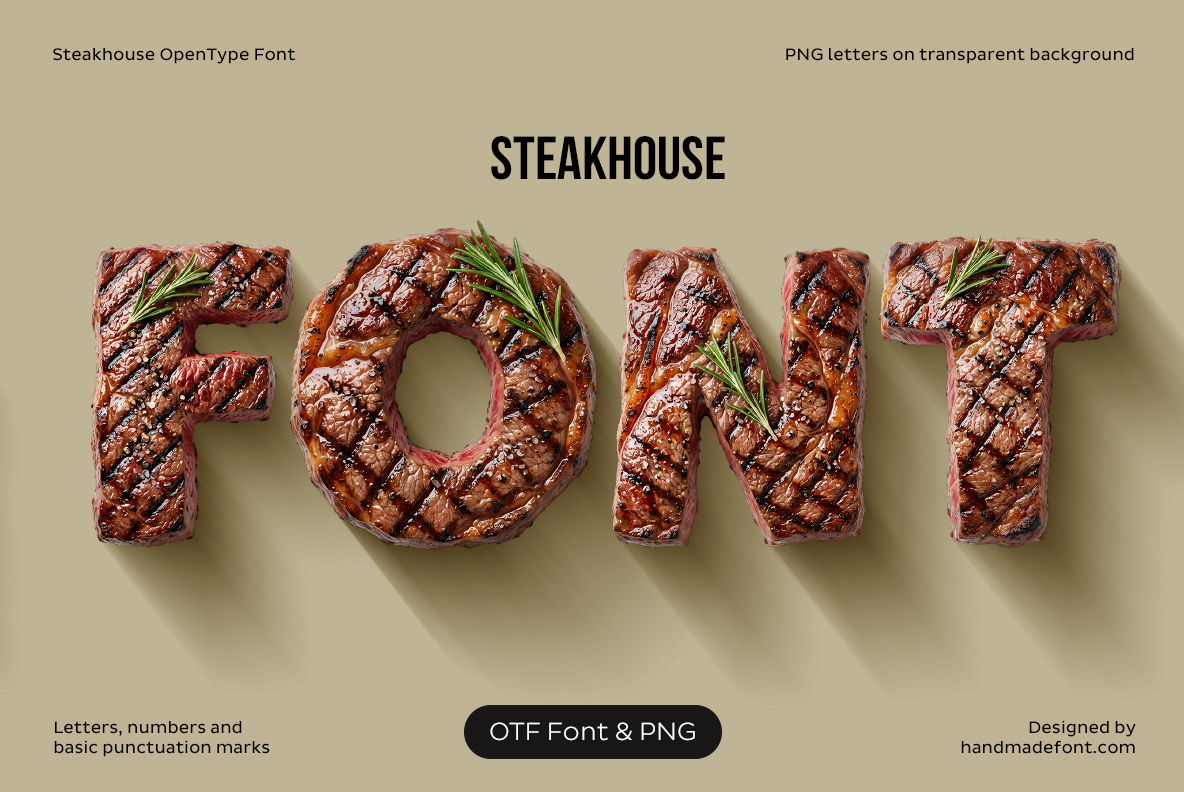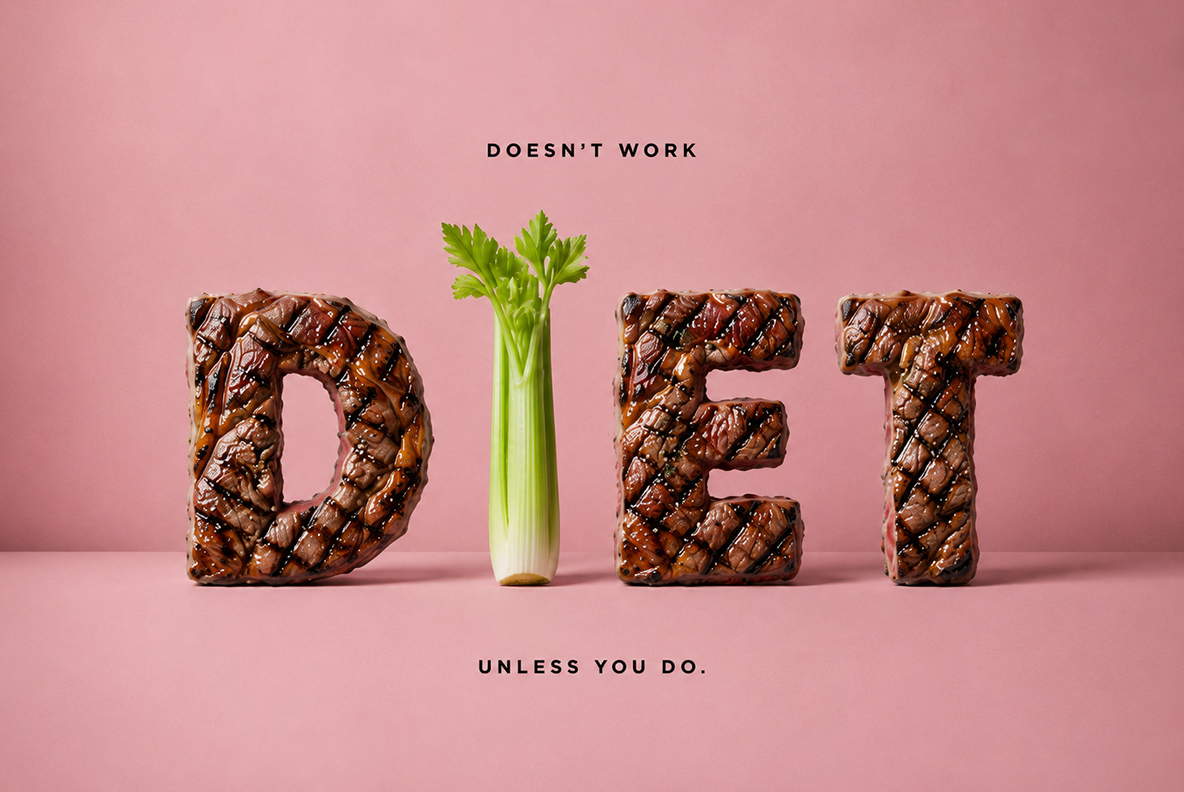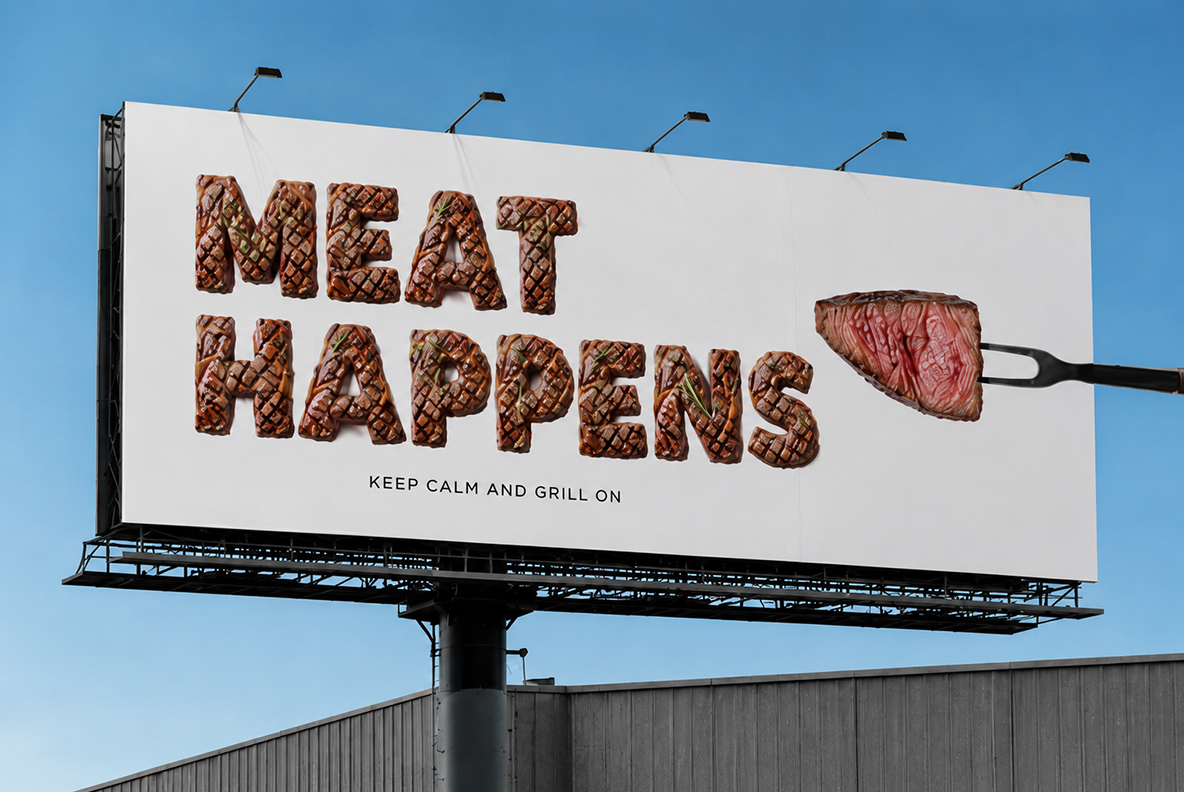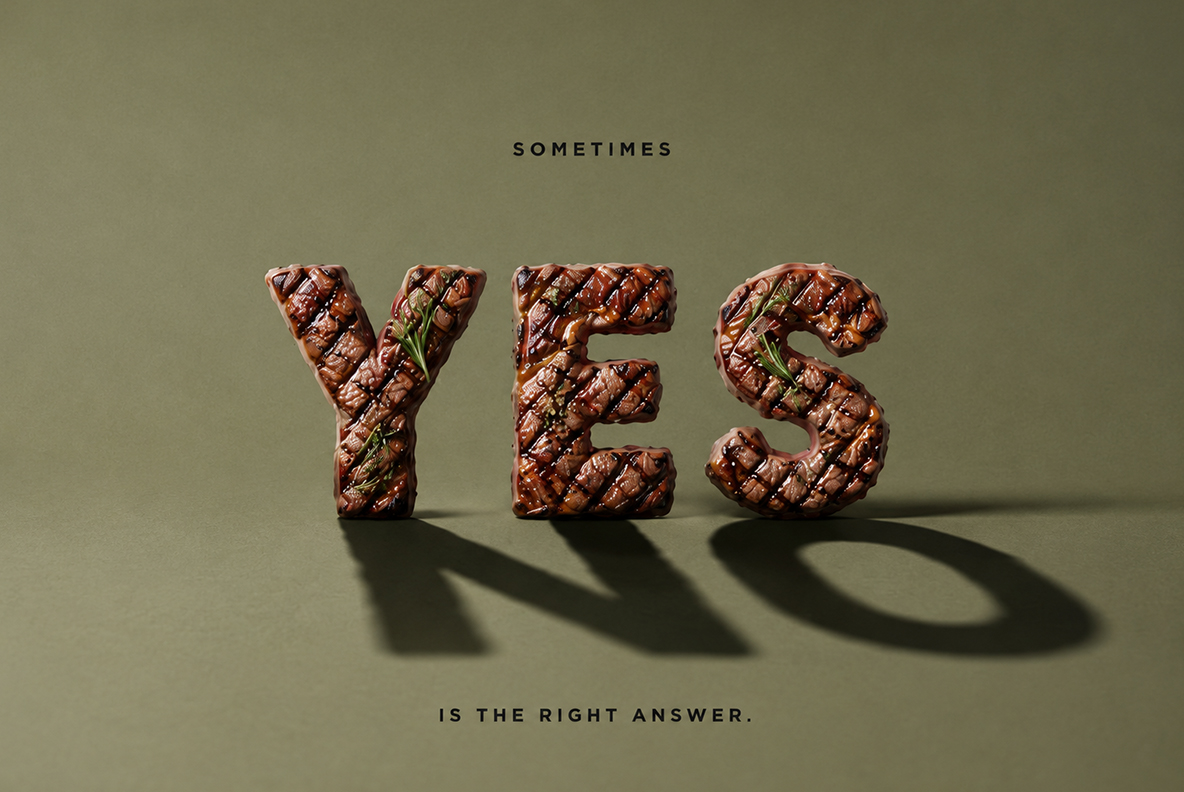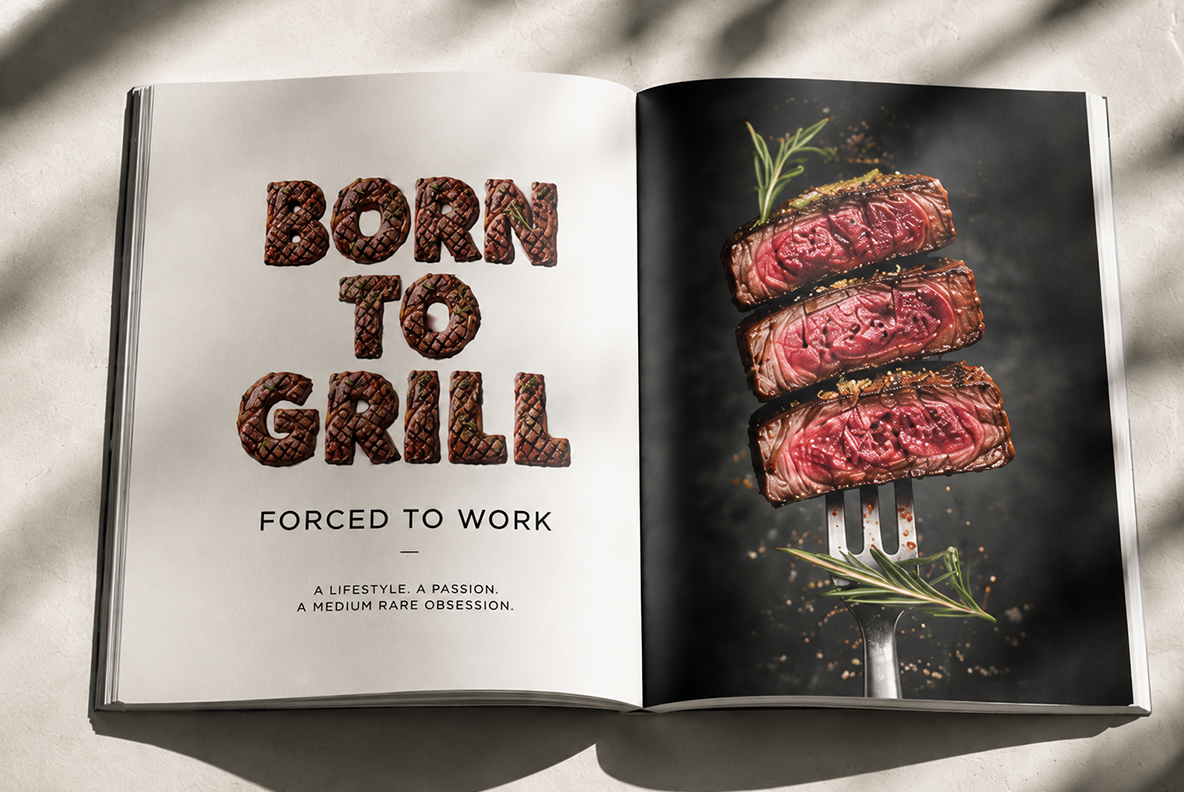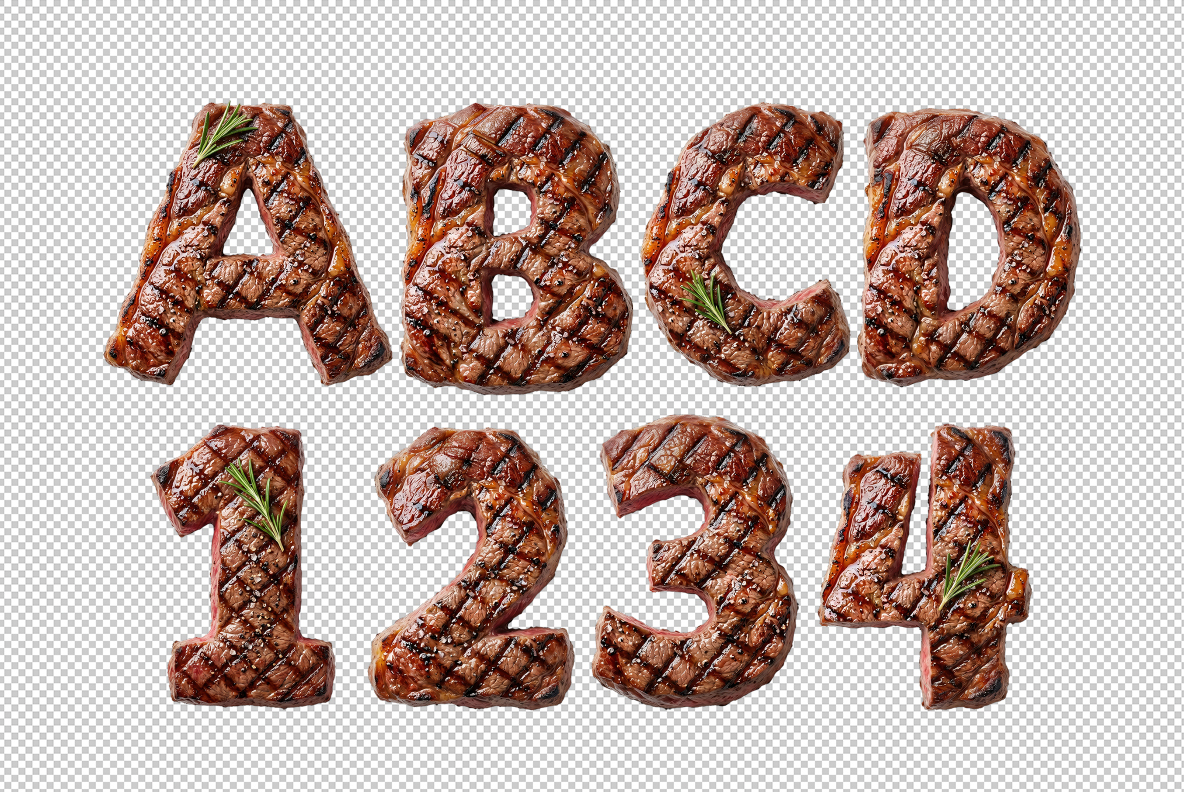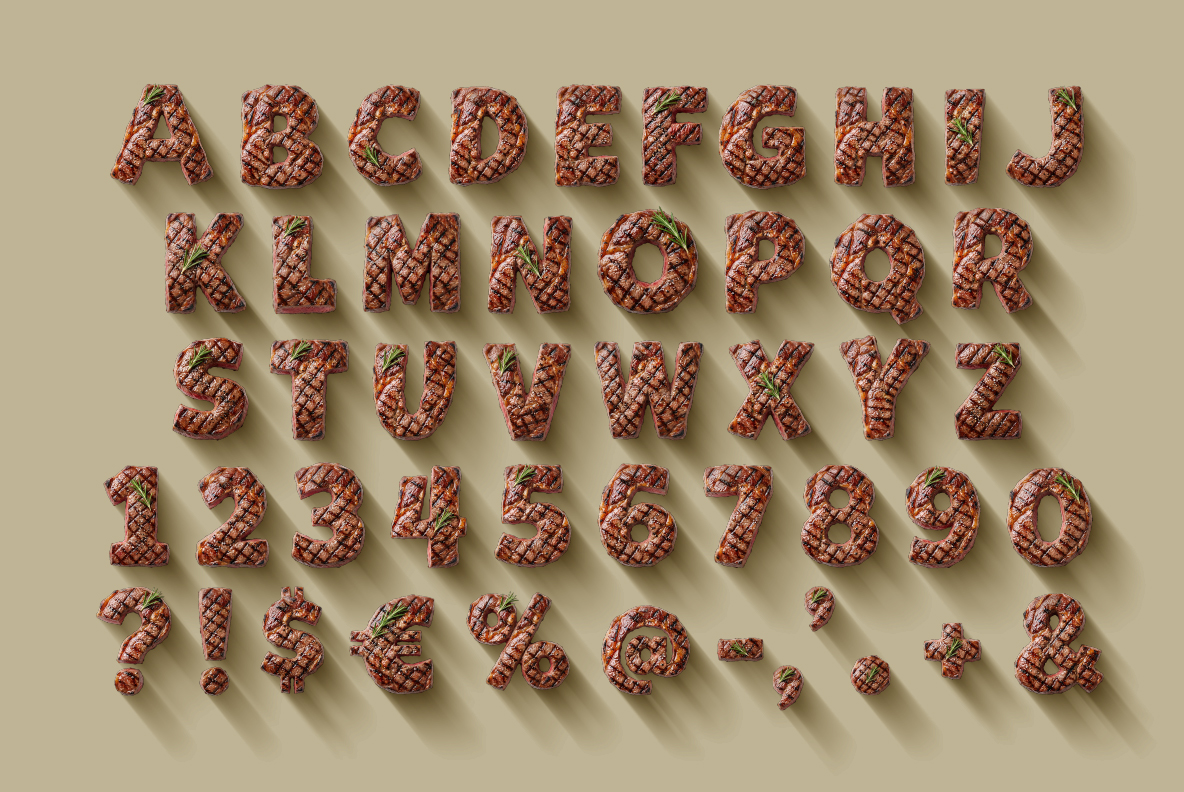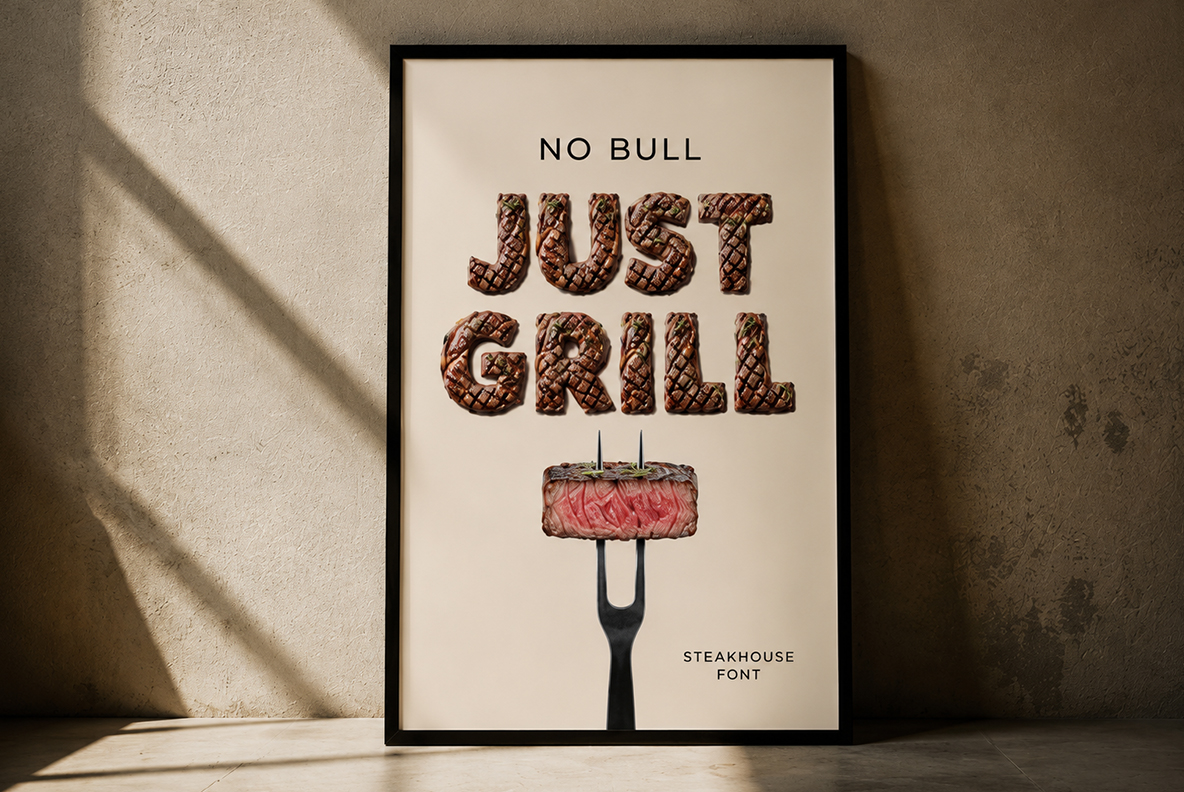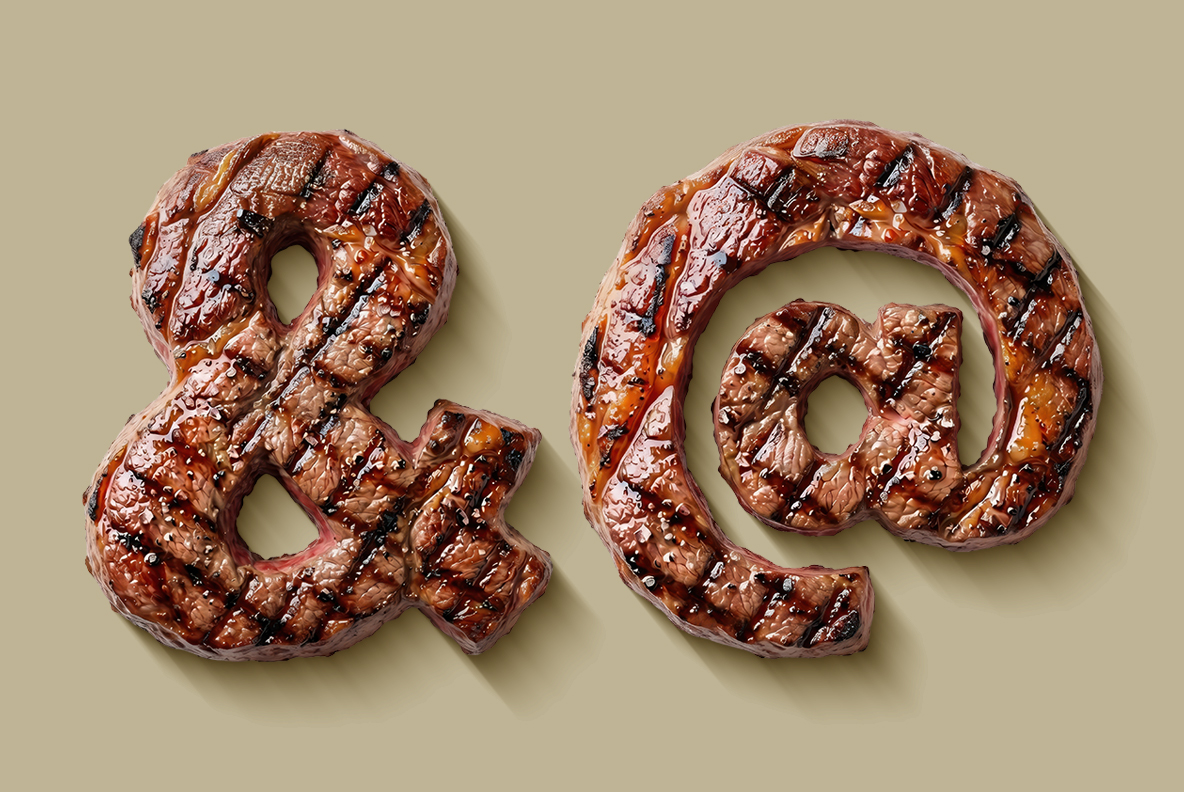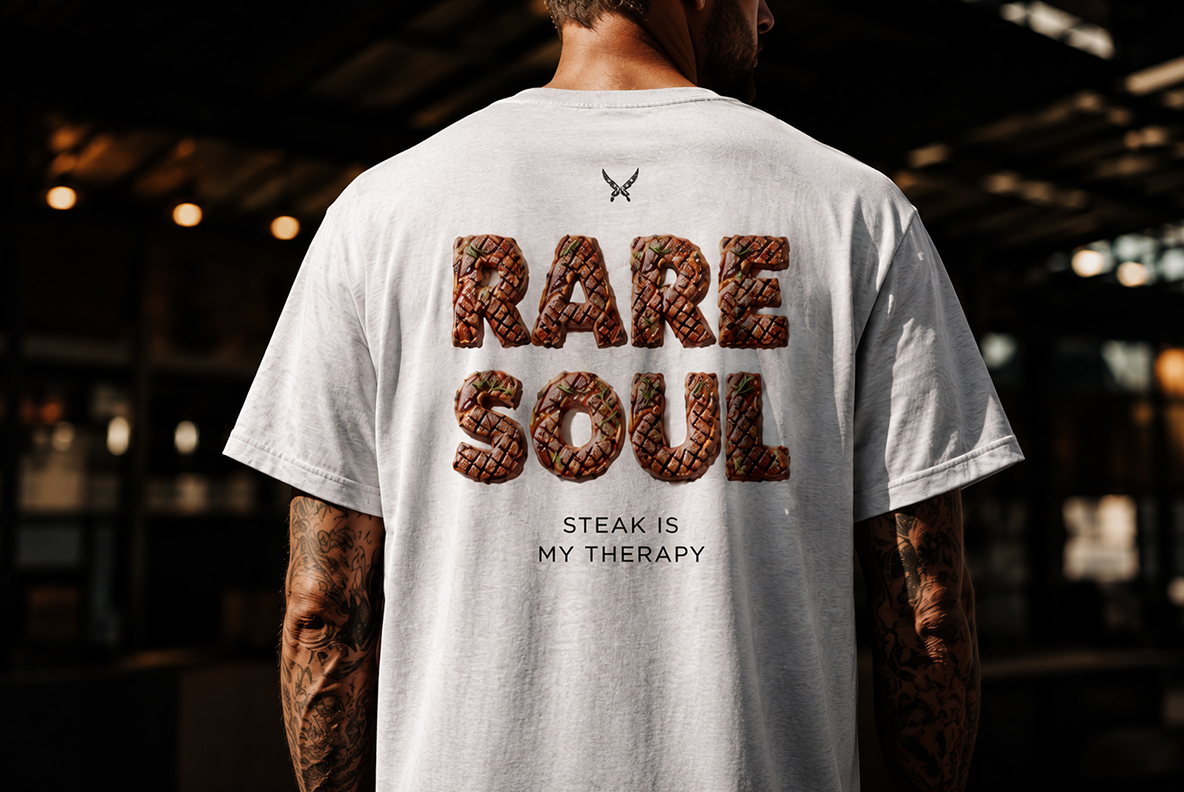
Steakhouse Font. Lattice Sear Marks and Rosemary
Steakhouse Font cuts its capitals from thick grilled beef, with a diamond lattice of sear marks running across every face. The crust stays glossy and caramelised, cracked pepper sits in the grooves, and rosemary tucks into a few letters. It arrives as an OTF you type with, plus separate PNG letters on transparent backgrounds.
Steakhouse Font Comes Off the Grill Crosshatched
Every capital in Steakhouse Font carries a diamond lattice of sear marks, because the grill got there first. The crosshatch runs across the whole face, so no stroke escapes it. Underneath, the meat stays reddish brown and glossy, since the crust has caramelised rather than burned. Edges round off softly as well, where the heat pulled the fibres tight. Deep shadows sit under each letter, therefore the whole word looks freshly plated. Naturally the numbers and punctuation come off the same grill.
Rosemary, Pepper and a Caramelised Crust
Small rosemary sprigs tuck into a few letters, though never into all of them. That restraint matters, because a herb on every glyph would read as decoration. Cracked pepper settles into the grooves too, while a little fat glistens at the corners. Then the ampersand and the at sign arrive folded like thick cuts, curling slightly. Above all, the alphabet wants large sizes, since the texture needs room.
What a Meat Alphabet Sells Best
Steak houses reach for it first, obviously. It fills a menu header well, since three grilled words say more than a photograph. Butcher shop windows suit it too, while a billboard reading MEAT HAPPENS does the rest. Merch also works, because a chest print of RARE SOUL sells itself. If the joke is DIET spelled in beef, so much the better. Skip long paragraphs though, because nobody wants to read a steak.
Steakhouse Font Beside the Rest of the Butcher Counter